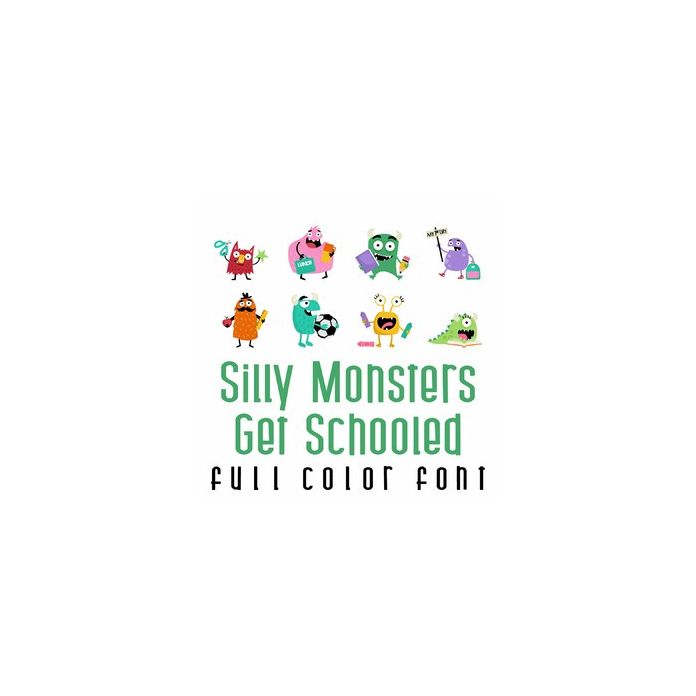
This adorable full color doodlebat font features adorable monsters ready for school. Perfect for cards, crafts, gifts, decor, scrap book pages, planner stickers and more